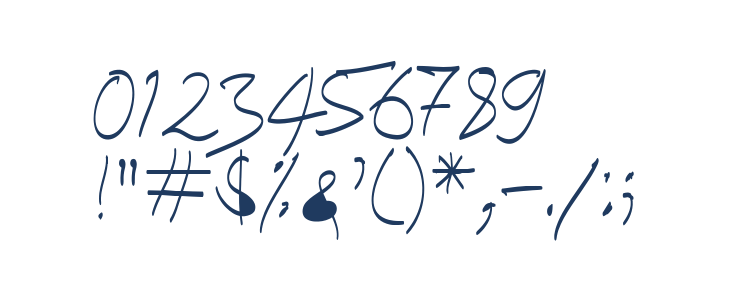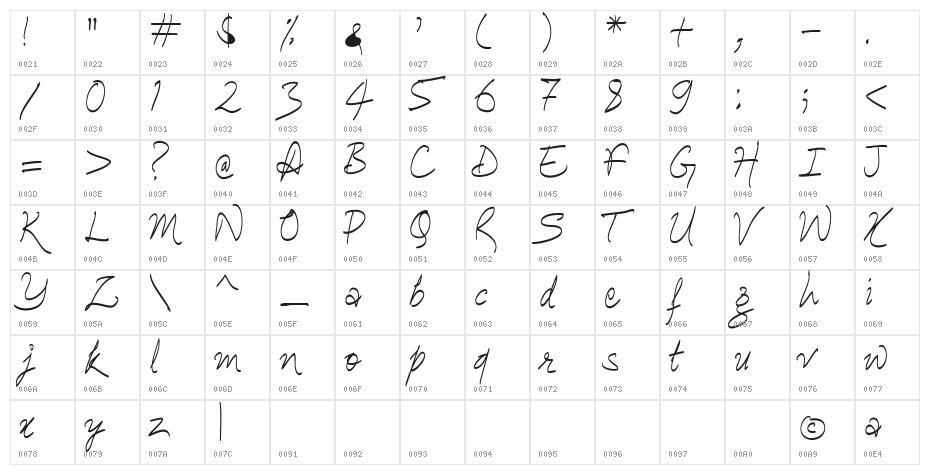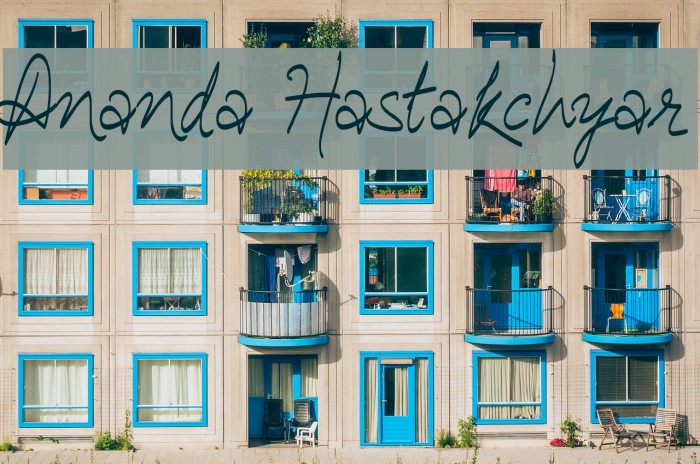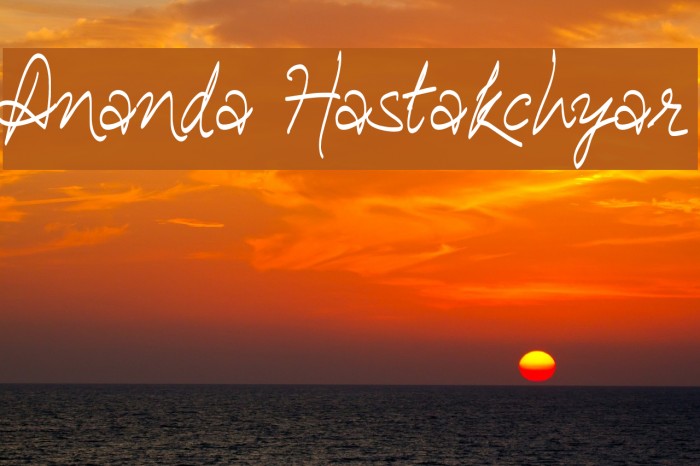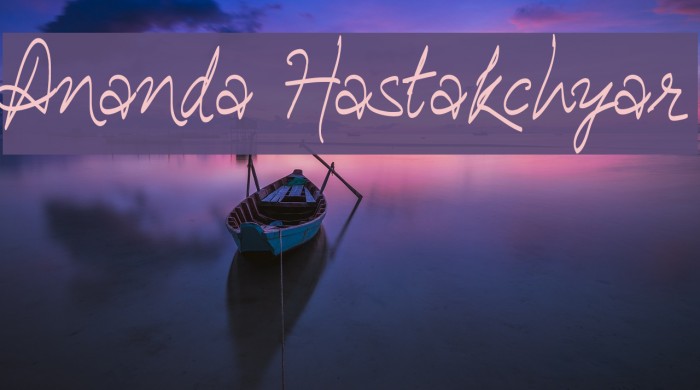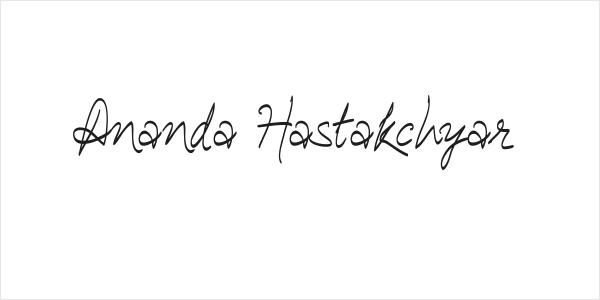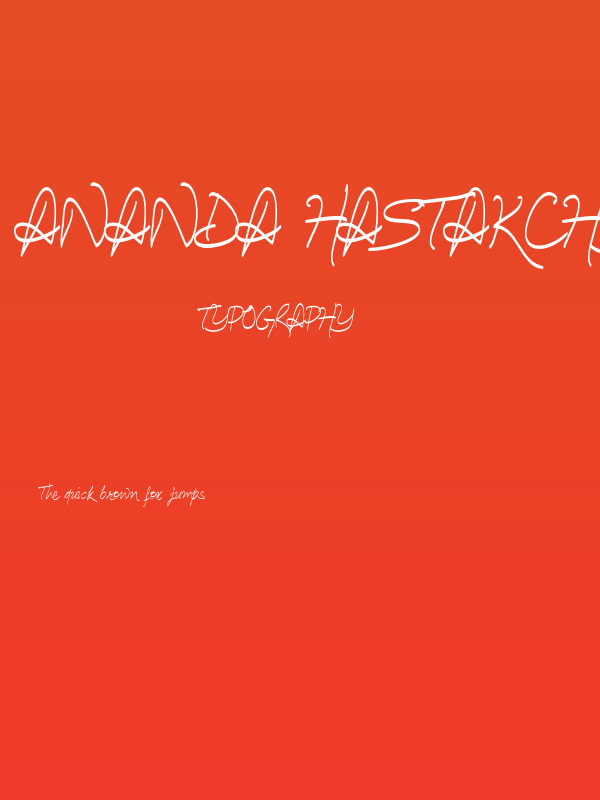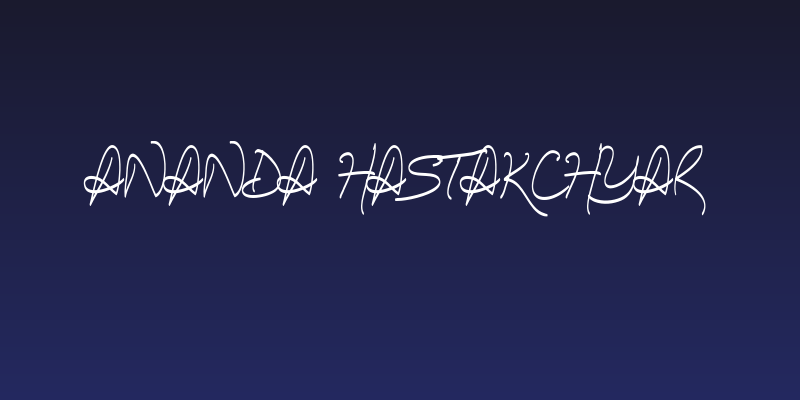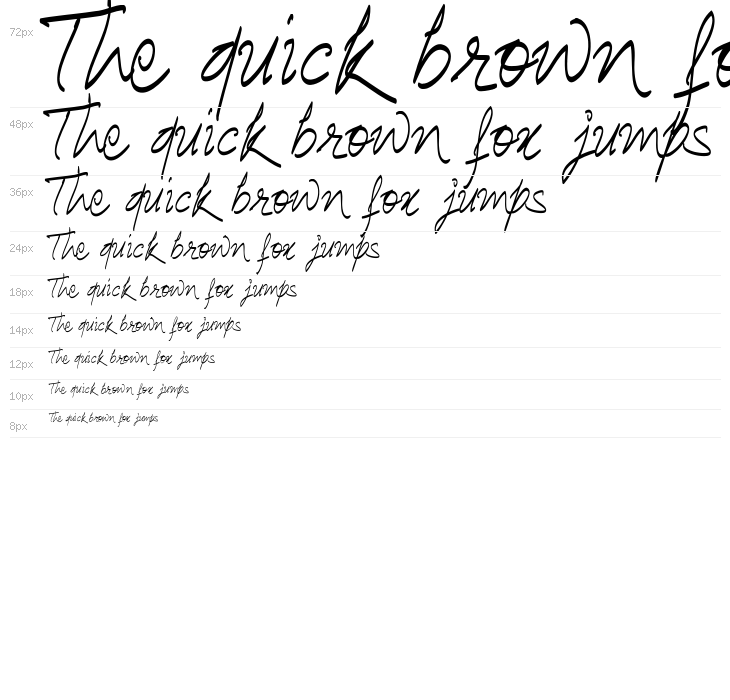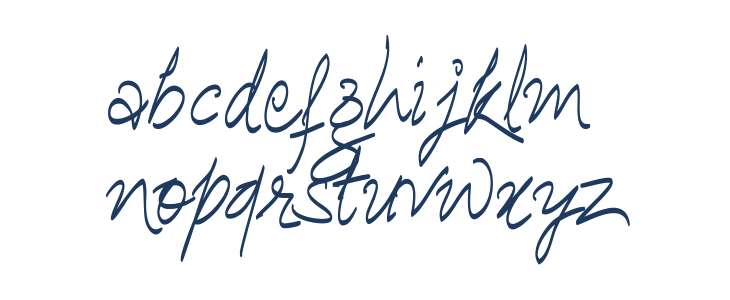
Ananda Hastakchyar Font
Ananda Hastakchyar Description
This font features a lively and expressive handwritten style, characterized by its fluid and dynamic strokes. The letters are interconnected, giving it a cursive appearance that mimics natural handwriting. The uppercase letters are bold and prominent, while the lowercase letters maintain a consistent flow, enhancing the overall legibility. Numbers and special characters are crafted with the same attention to detail, ensuring a cohesive look across all glyphs. The font's playful yet sophisticated design makes it suitable for a variety of creative applications.
| Use Case | Logos, Invitations, Greeting cards |
| Proposed Projects | Ideal for personal branding, invitations, greeting cards, and artistic projects that require a personal touch. |